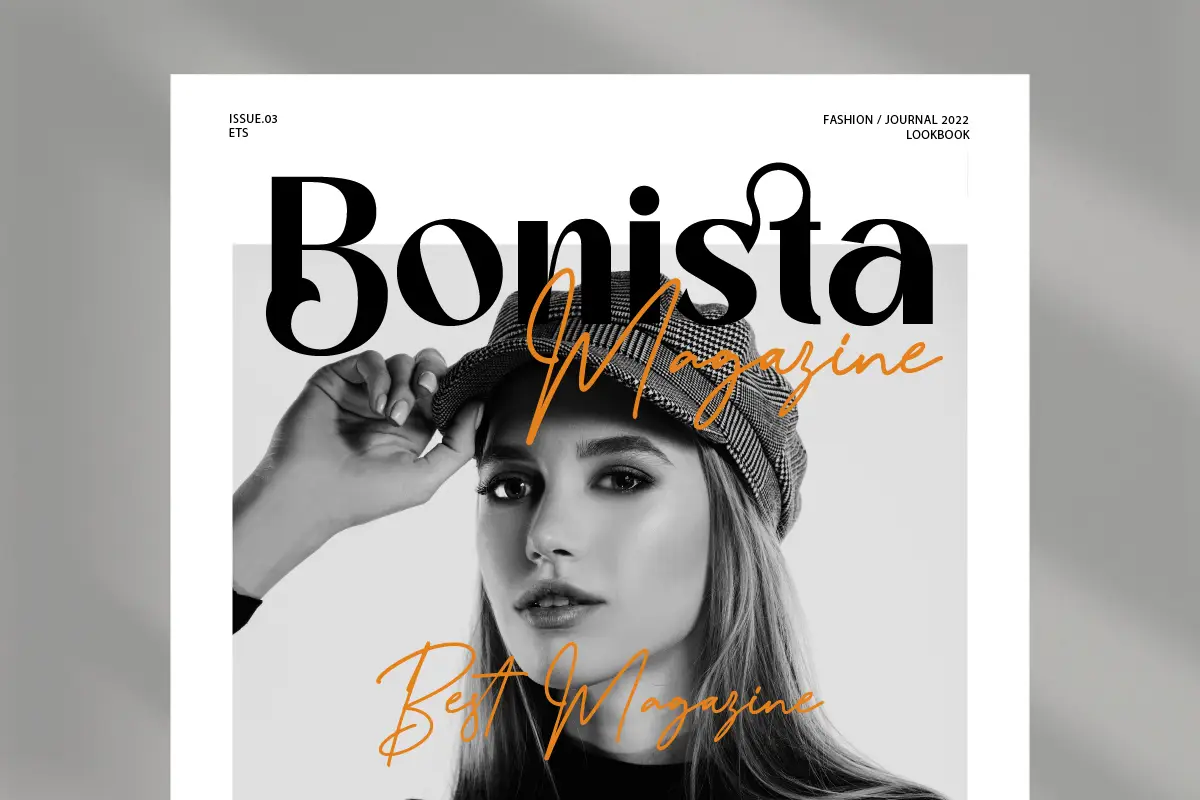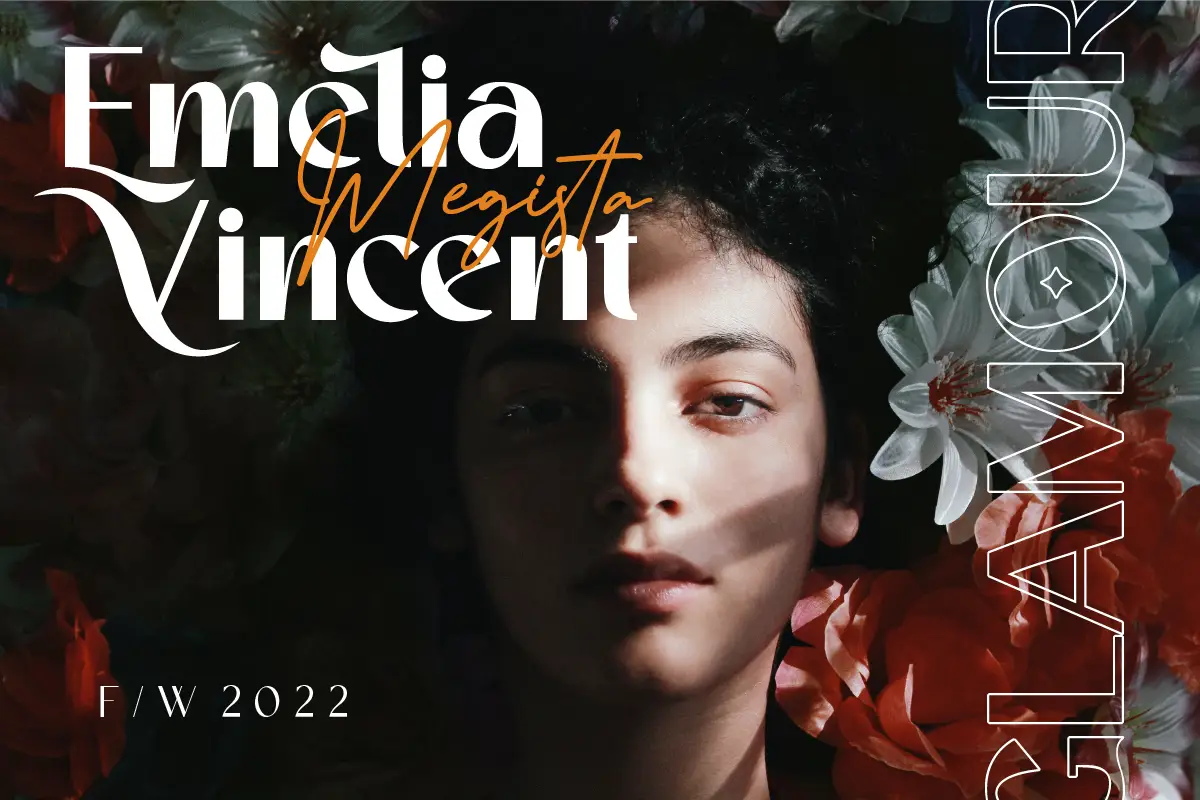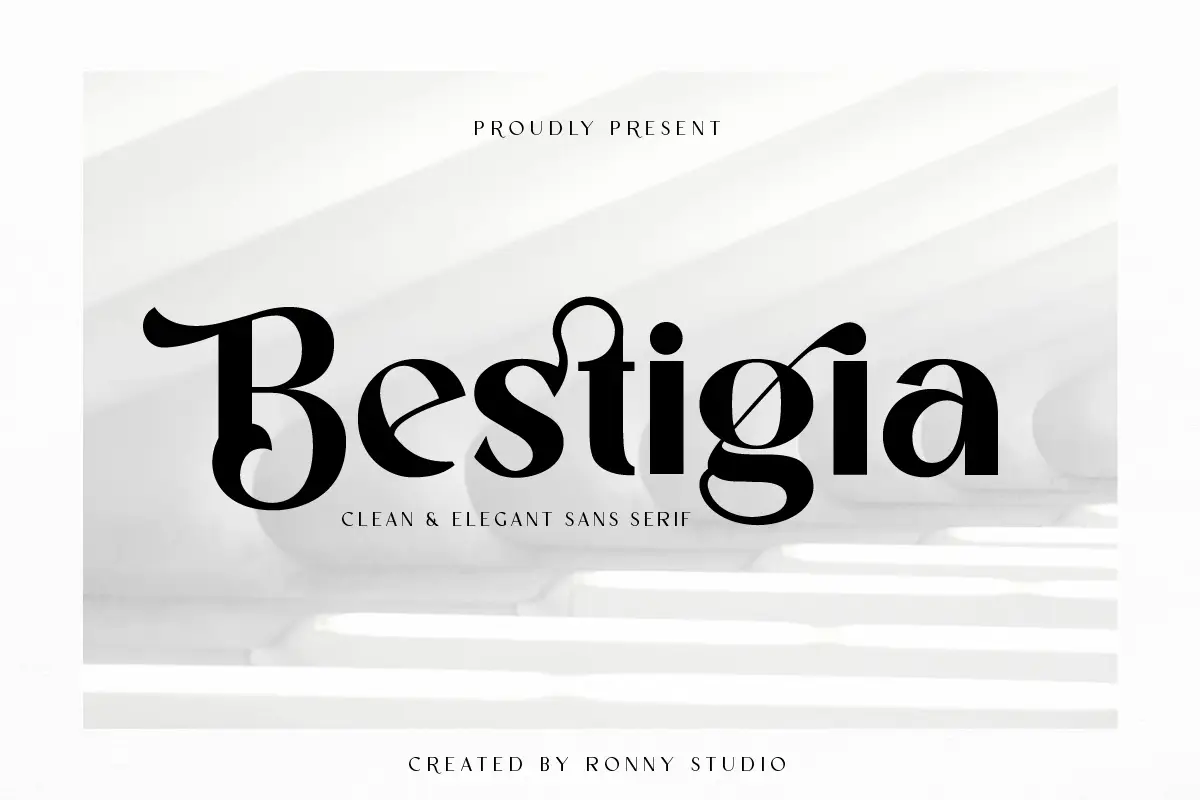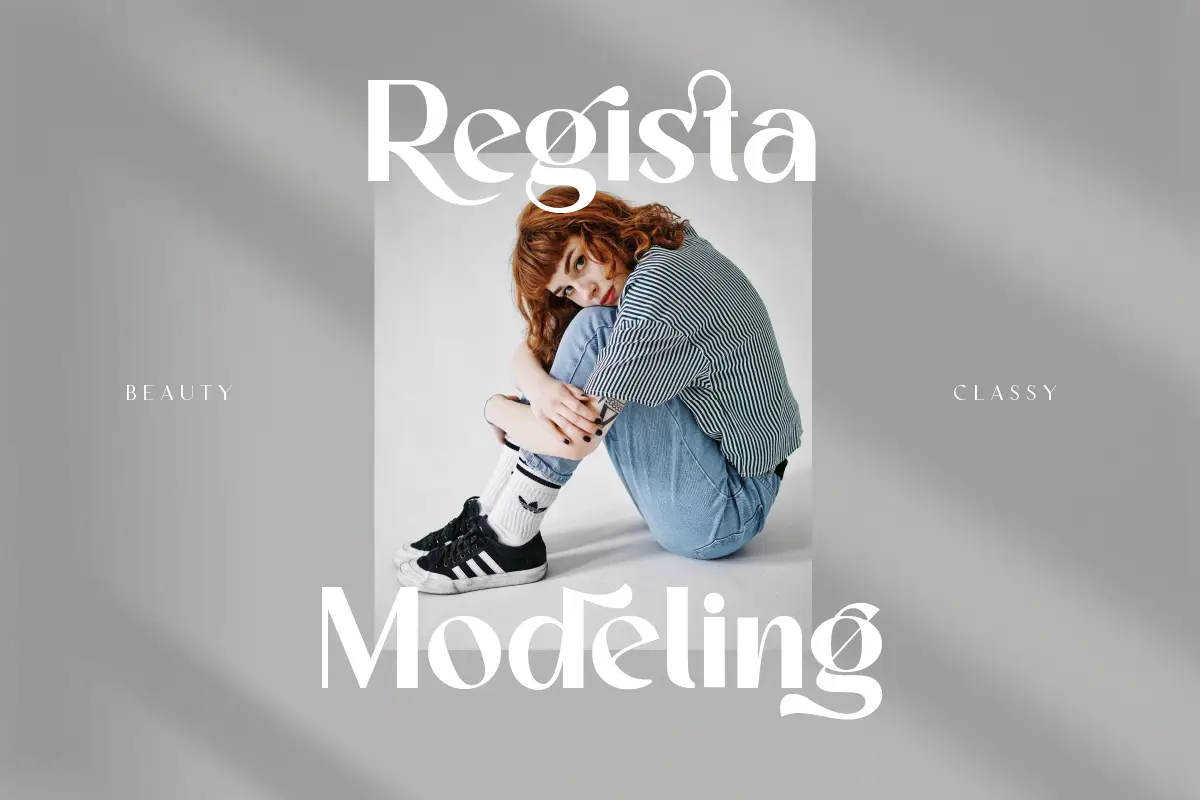
Bestigia – Elegant Sans Serif Font
Introducing Bestigia, an elegant sans serif font designed to elevate your design projects. With its clean lines and modern aesthetic, this font is perfect for a variety of applications, including branding, logos, web design, and print materials.
• Utilize Bestigia for clean and modern branding projects.
• Incorporate this font into your website for a sophisticated look.
• Use it in print materials like business cards, brochures, and flyers to make a lasting impression.